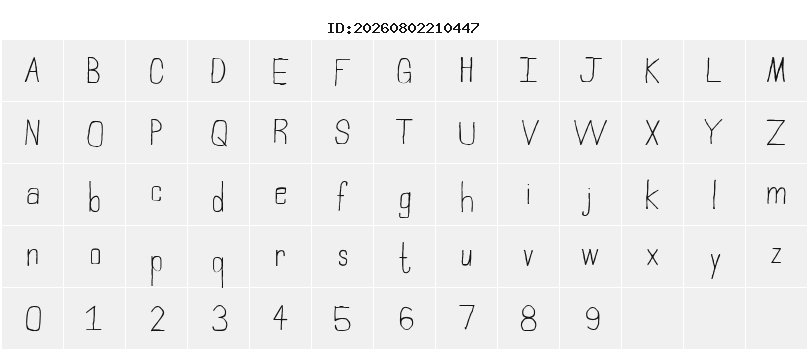
Northampton.ttf is a modern, elegant sans-serif font designed for ultimate readability and visual harmony. Perfect for branding, headlines, web design, and print materials.